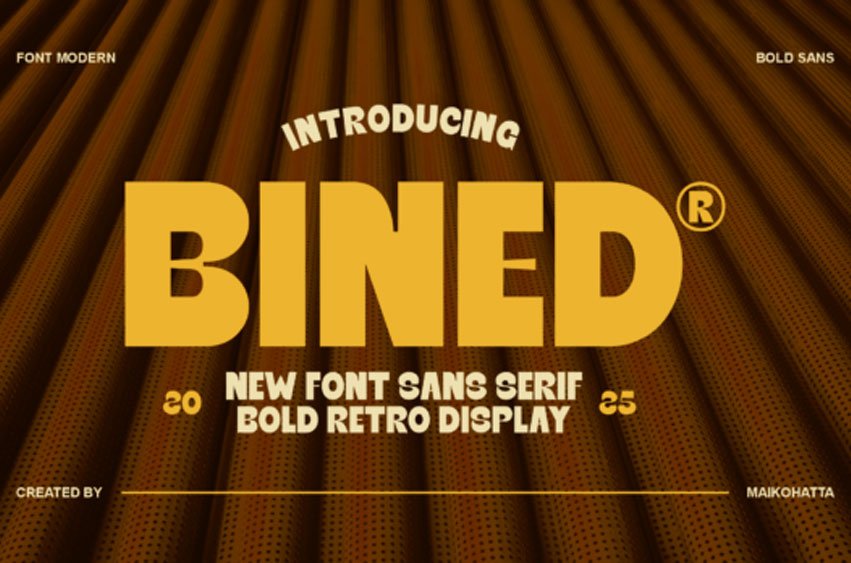
Bined Font is a bold retro sans serif font that brings a confident, eye-catching presence to any design. Inspired by vintage poster styles with a modern twist, Bined delivers thick, structured letterforms perfect for logos, headlines, signage, and packaging. Its clean edges and high-impact silhouette make it a go-to display typeface for designers seeking a nostalgic yet contemporary vibe. Whether you’re crafting promotional materials or a brand identity, Bined guarantees visibility and style in equal measure.
Perfect for: logos, headlines, posters, packaging, branding, and editorial designs.